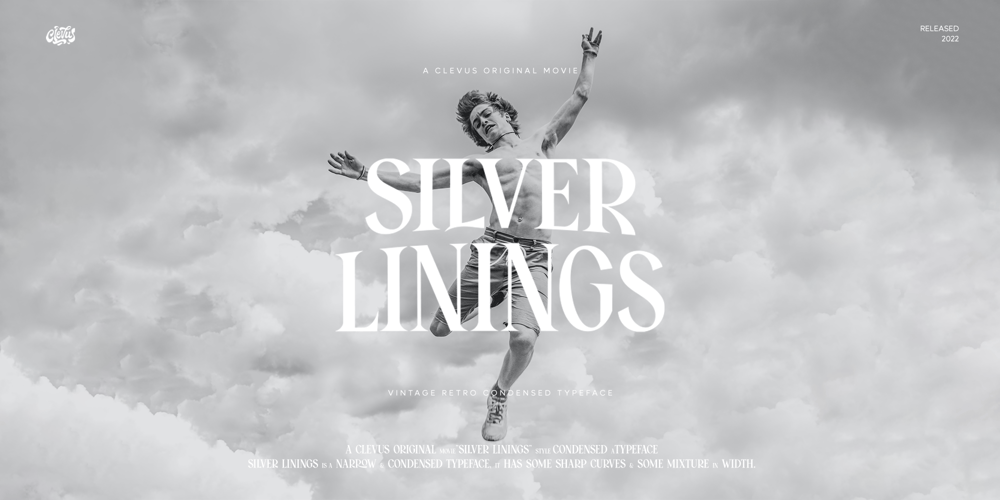
Silver Linings Font Family was designed by Alfinu Zafir and published by Clevus. Silver Linings contains 1 styles and family package options. Proudly present Silver Linings Typeface.Say hello to Silver Linings A classy eighties magazine inspired serif condensed – with a complementary lowercase version. In true Eighties style, they also come in varying degrees of Condensed form – mix and match them to create eye-catching effects.Don’t forget to use all caps too in your mixing and matching – it adds contrast and impact to your type design.Design tips! : Tighten your letterspacing for larger titles to create a range of looks.Comes with alternatives and ligatures, and helps to create stunning magazine imagery, quotes, posts, blog posts, branding projects, logo, poster and much more.Font Features : Lettres, numbers, symbols, and punctuation 20+ alternates and ligatures No special software required they may be used even in canva, any basic program /website apps that allows standard fonts That’s it folks! Multilingual Support Language Support: Danish, English, Estonian, Filipino, Finnish, French, Friulian, Galician, German, Gusii, Indonesian, Irish, Italian, Luxembourgish, Norwegian Bokmål, Norwegian Nynorsk, Nyankole, Oromo, Portuguese, Romansh, Rombo, Spanish, Swedish, Swiss-German, Uzbek (Latin).Follow My Shop For Upcoming Updates Including Additional Glyphs And Language Support. And Please Message Me If You Want Your Language Included or If There Are Any Features or Glyph Requests, Feel Free to Send me A Message.Have a Good Day !